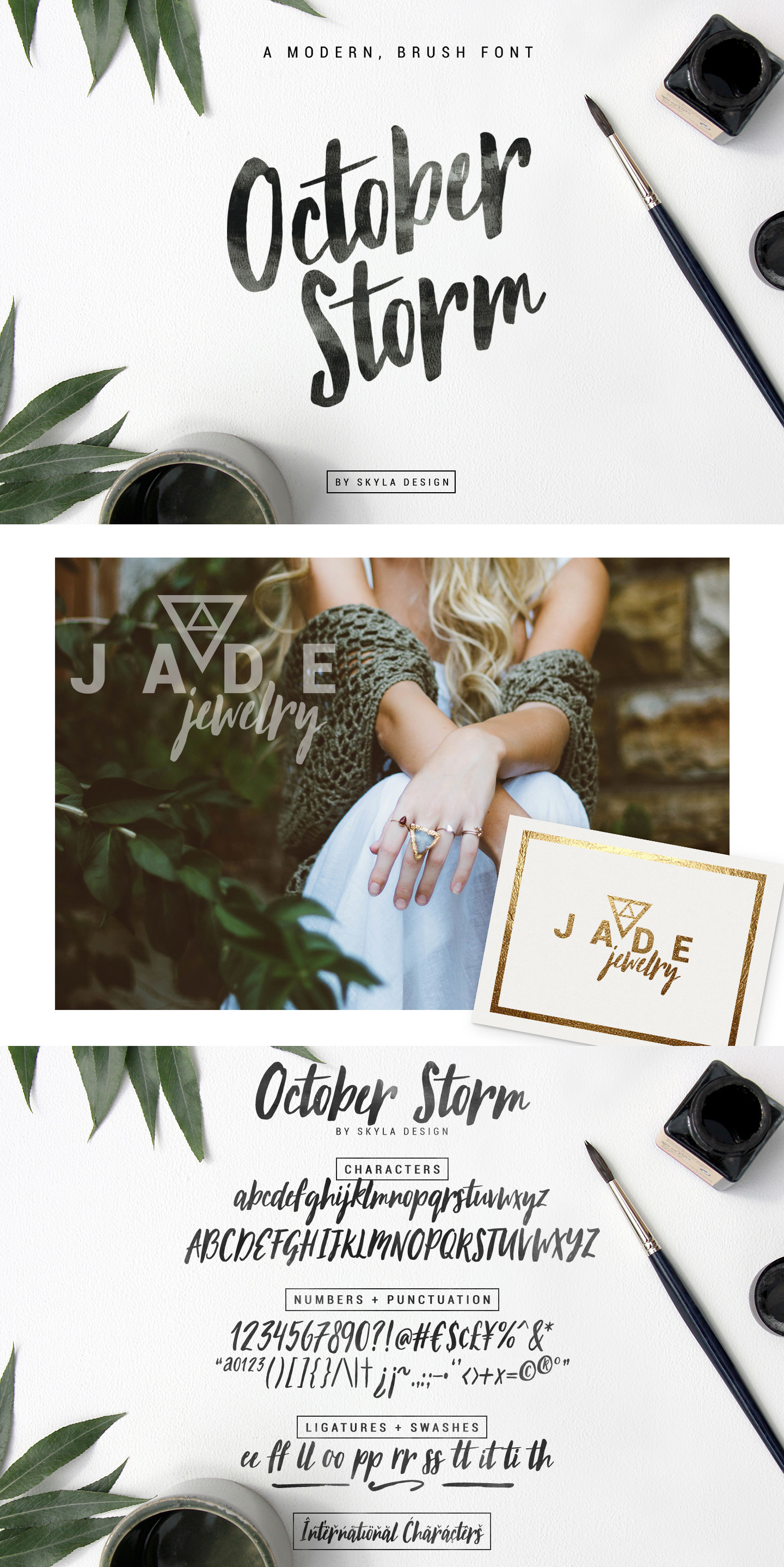
October Storm modern brush font
October Storm is an edgy, modern brush font which is waiting to be used for your next project! This font is perfect for making invites, quotes, photo overlays, and any other awesome projects you're working on. This font also includes some great swashes and a png file of ink splashes.
WHAT'S INCLUDED This font contains standard characters, lowercase, uppercase, numbers, punctuation, ligatures, swashes and international characters. You will receive the OTF and TTF files.